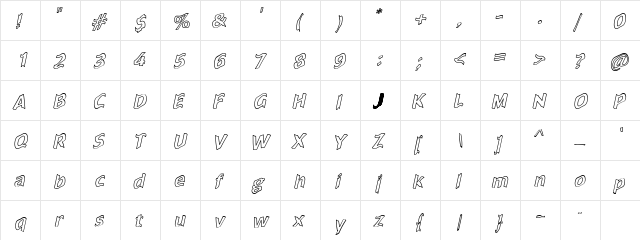
Dross02HollowSlanted Regular
Design Context for Dross02HollowSlanted Typeface
Dross02HollowSlanted is a composed and adaptable typeface that performs quietly and consistently across a wide range of design contexts. Its italic angle brings a sense of urgency and motion to the letterforms.
Pro Tip: Use Dross02HollowSlanted for emphasis, pull quotes, and subheadings where its slanted energy can add rhythm to the layout.